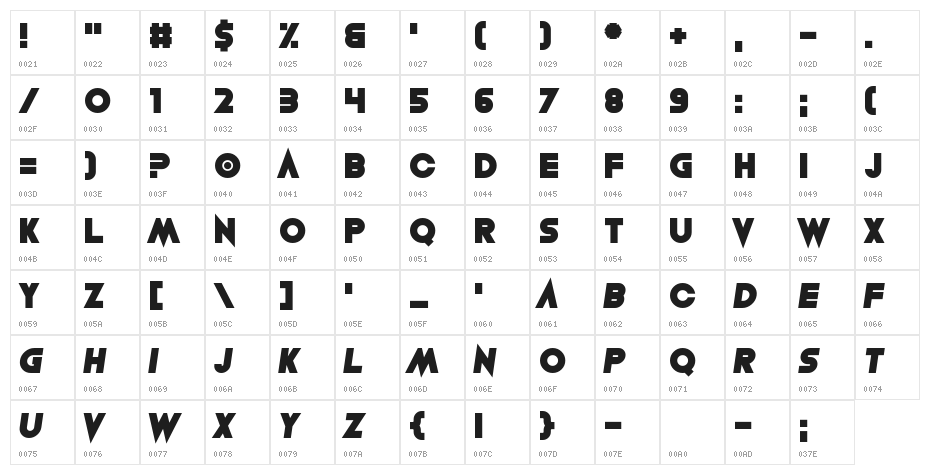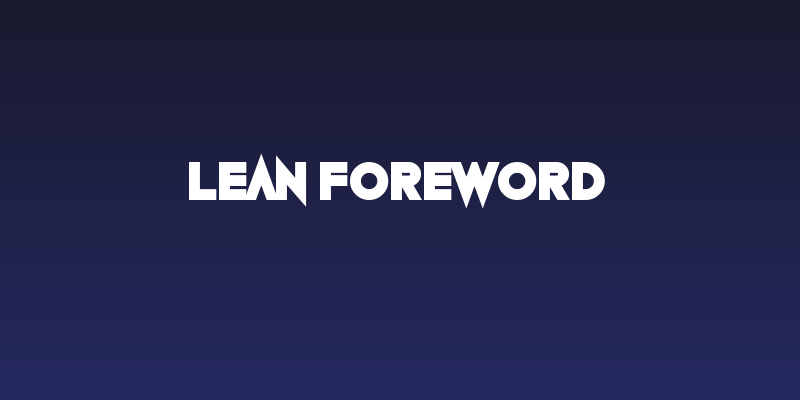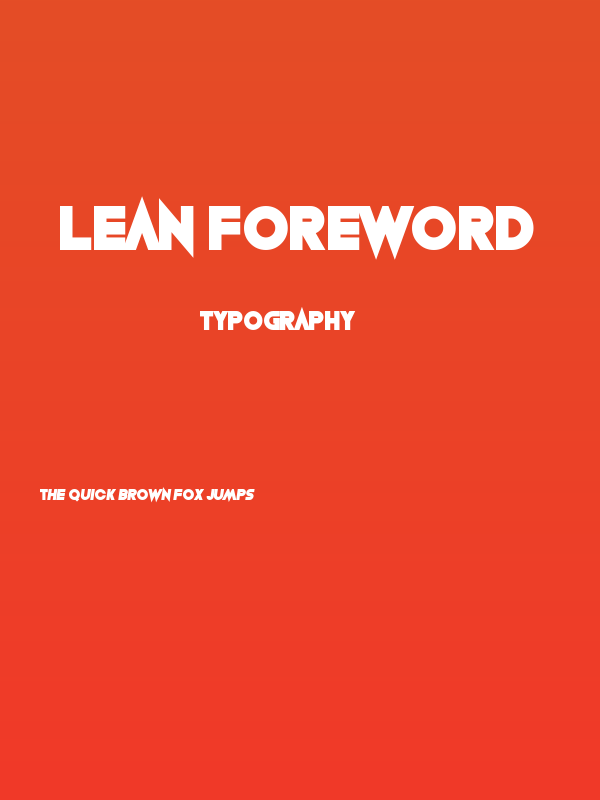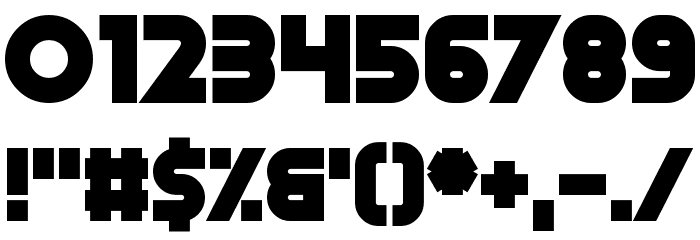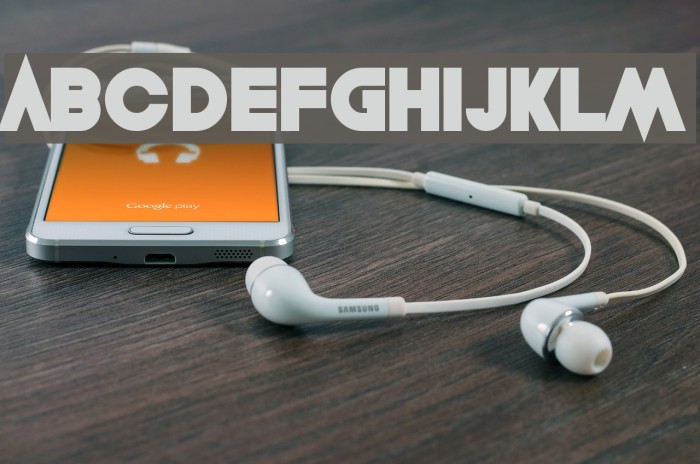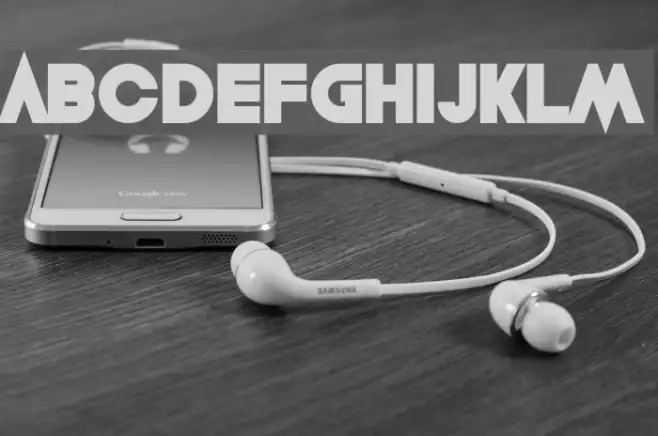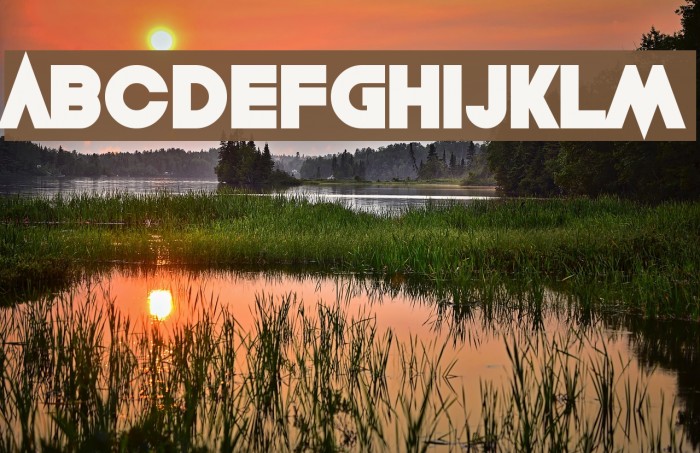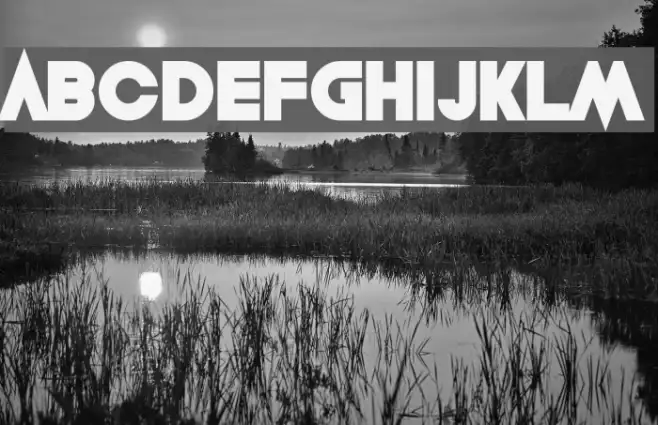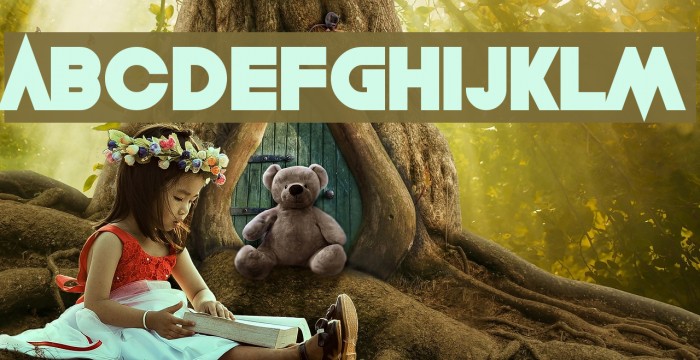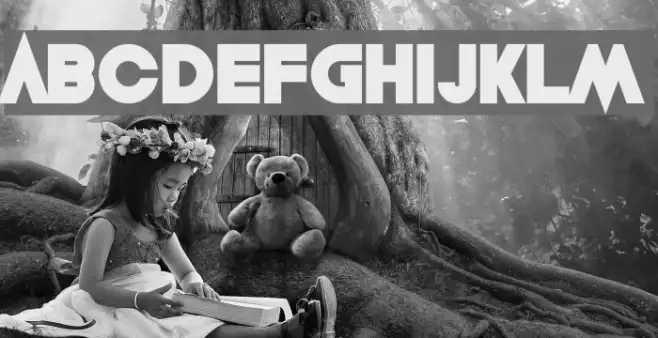
Lean Foreword Font
Lean Foreword Description
This font features a bold and dynamic design with a strong geometric influence. The characters are sharply angled, giving them a forward-leaning appearance that conveys a sense of motion and energy. The uppercase letters are particularly striking, with wide, solid strokes that create a commanding presence. The numerals and special characters maintain this bold style, ensuring consistency across all glyphs. The overall look is modern and impactful, making it ideal for projects that require a strong visual statement.
| Proposed Projects | Ideal for branding, posters, headlines, and any design requiring a bold, modern aesthetic. |